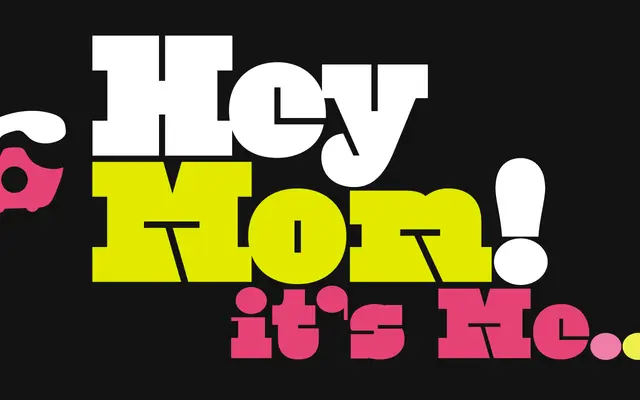
BD Mother
A single-weight cartoony slab serif from 2007, characterised by rounded curves and thin square counters suited to warm, informal messaging.
BD Mother pairs chunky slab construction with curvy, rounded letterforms and thin square inner shapes to produce a friendly, expressive character. Available in a single Regular weight, it covers a broad range of Latin-script languages including French, German, Spanish and Swedish. Best suited to packaging, greeting cards or any context calling for approachable, spoken-word energy.
Described as a cartoony slab serif with thin square inner shapes and curvy forms, placing it firmly in the slab category with a playful, display-oriented character.